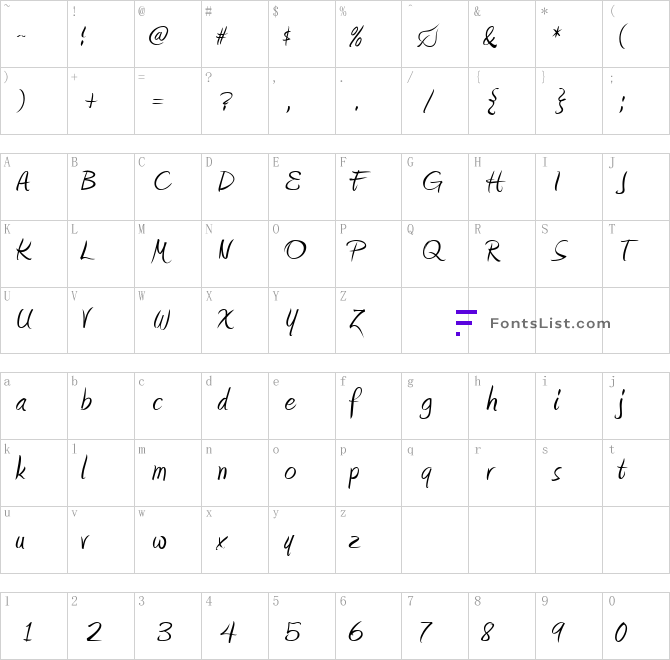
- Font Name:Amienne
Amienne.ttf is a very beautiful artistic font, Amienne.ttf is widely used in the design and printing of various books and pictures,Amienne.ttf has a strong visual impact,Amienne.ttf is a commonly used font in newspapers, magazines and books, and is used in posters, e-commerce Poster design, store design, logo design, font design and other fields.Amienne.